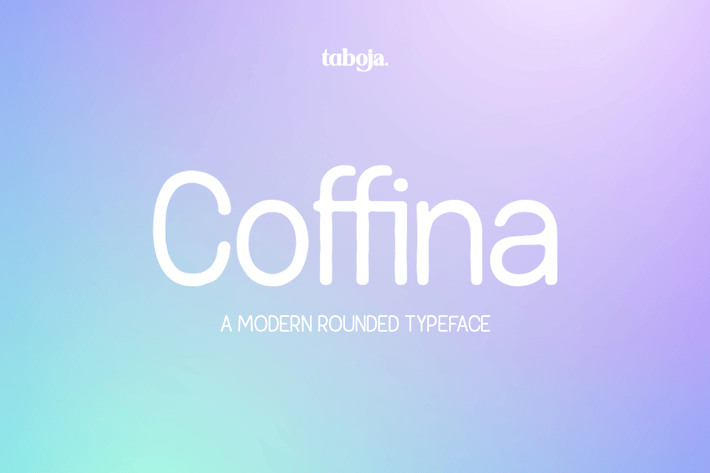
Coffina - Rounded and Rough Typeface
Introducing Coffina, a rounded and rough typeface that exudes an organic hand-written aesthetic. Making it an ideal choice for designs that require a modern vintage, elegant, or soft touch. Carefully crafted to suit a wide range of graphic design needs. Enhance your projects with this eye-catching typeface, perfect for creating a truly unique visual experience.
Coffina Features:
Regular
Uppercase And Lowercase
Alternates And Ligatures
Numerals & Punctuation
Accented characters